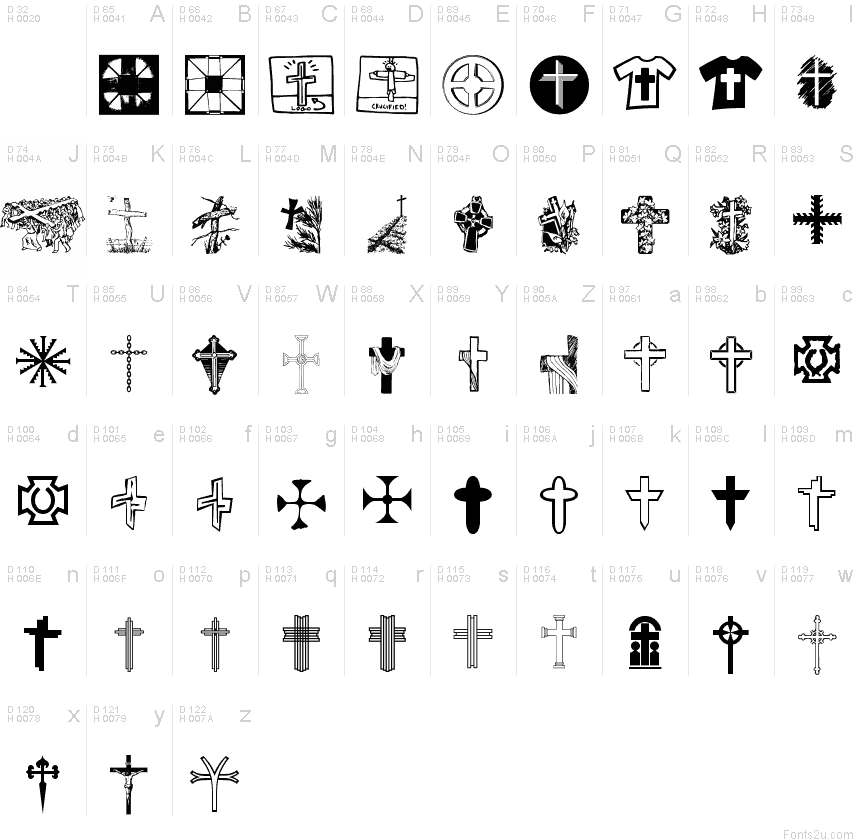
Christian Crosses V
Christian Crosses V font by Unauthorized Type is a free dingbat typeface that turns every keystroke into a different cross symbol, from bold, inky silhouettes to outlined, layered forms and hand-drawn logo sketches. The icons feel both ancient and imaginative, mixing medieval-inspired shapes with playful, cartoon-like frames, so you can move from solemn to friendly without changing fonts.
Using Christian Crosses V, you can quickly build artwork for church logos, worship slides, youth group flyers, Bible study workbooks, holiday cards, and social media graphics. The varied cross styles let you create a visual hierarchy—use the heaviest icons large as focal points, then support them with the lighter, lined versions. This free font pairs smoothly with a clean sans serif for text, keeping the symbols as the visual anchor.